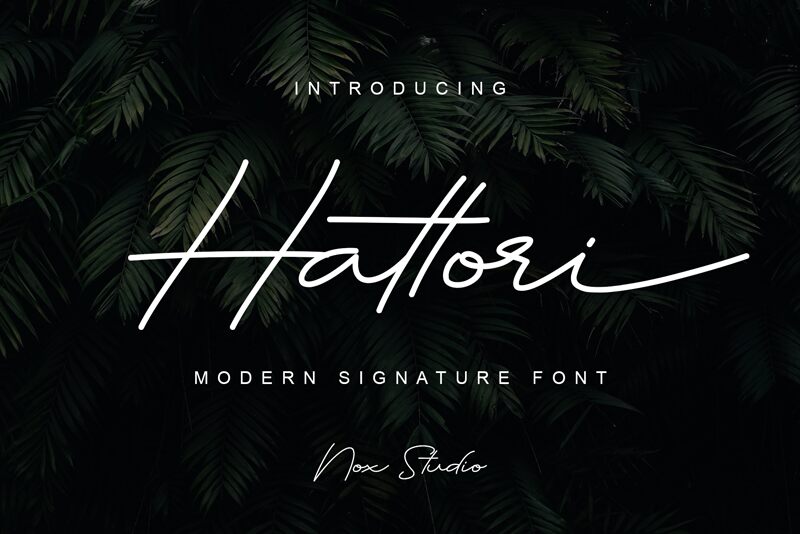
Hattori
Hattori, the modern handwritten font by Nox Studio (Sarif Hidayat), brings a touch of elegance to any project. With its thin weight and sleek curves, Hattori is perfect for branding, invitations, and social media graphics. This font's unique style adds a personal touch to business cards and website designs. Try using Hattori in your next project to create an unforgettable impression that will leave your audience in awe. Its versatility makes it suitable for fashion magazines, beauty blogs or even wedding invitations! Let Hattori elevate your design game with its sophisticated charm.